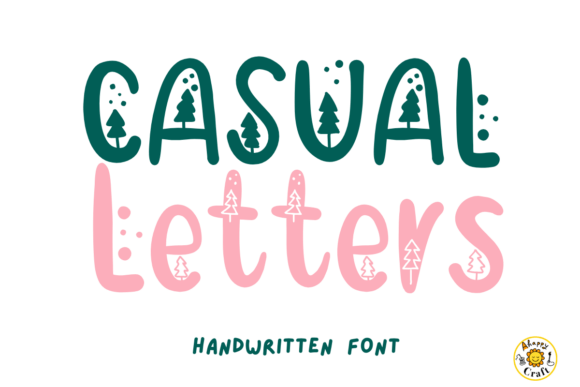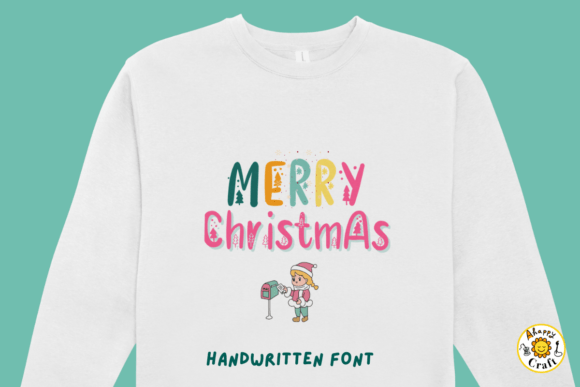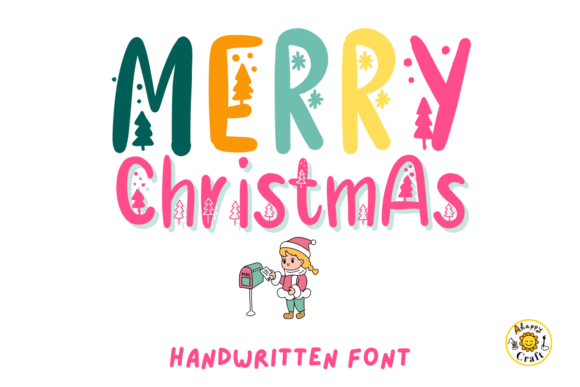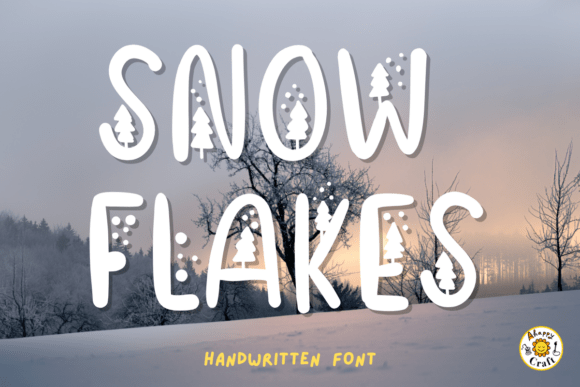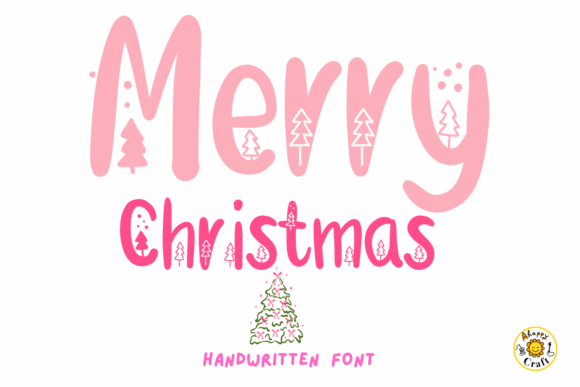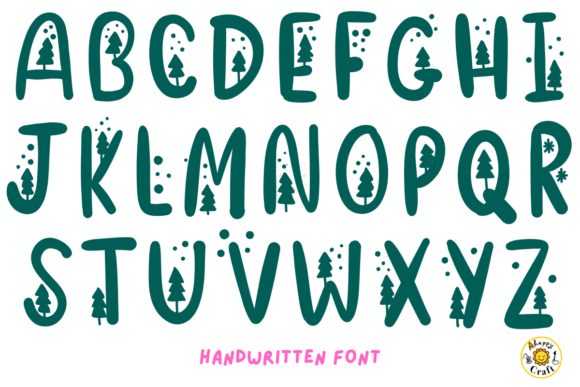
The Magic of Christmas Font: Adding a Touch of Festivity to Your Designs
As the snowflakes start falling and the holiday lights begin to twinkle, many of us find ourselves swept up in a creative flurry of festive projects. Whether you’re making handmade cards, designing decorations, or crafting a family newsletter, there’s something special about bringing the magic of Christmas to life. And for designers, finding the perfect font can make all the difference.
Enter Christmas Font, a charming and festive handwritten decorative font that’s sure to add a touch of whimsy to any winter project. With its playful, handwritten feel, this font is the perfect way to give your designs a personal, handcrafted look that’s sure to delight. And for designers, Christmas Font is a valuable addition to any toolkit, offering a unique way to add a touch of holiday cheer to everything from invitations to gift tags.
Key Features of Christmas Font
- Size: 10,000+ glyphs, including Latin, Cyrillic, and Greek alphabets, as well as various festive symbols and decorations
- Resolution: Supports high-resolution printing and display, making it suitable for various applications, including signage, posters, and digital media
- Unique Characteristics: Features a playful, hand-drawn design with intricate details, ornaments, and flourishes, giving it a festive and whimsical feel
- Script and Style Options: Includes multiple script and style options, such as bold, italic, and outline, to provide versatility and flexibility in design
- Language Support: Supports multiple languages, including English, Spanish, French, German, Italian, and many more, making it suitable for international applications
Designer Review: Christmas Font
Overall, the Christmas Font has a certain je ne sais quoi to it. The designer has put in some effort to create a festive atmosphere, but it’s a mixed bag.
- Unique and playful feel: The font has a quirky charm that could work well for novelty or holiday-themed projects.
- Creative use of ornaments: The inclusion of ornaments and decorations within the font adds a fun and whimsical touch.
- Potential for customisation: The font’s design allows for some creative freedom, making it a good choice for designers who want to experiment with different styles.
- Limited legibility: In certain font sizes or styles, the text can become difficult to read, which may not be ideal for large blocks of text.
- Overly ornate: While the ornaments are a fun touch, they can also make the font feel overly busy or cluttered.
- Not suitable for all projects: The font’s playful nature may not be suitable for more formal or professional projects.
Overall, the Christmas Font is a fun and creative choice for designers who want to add some festive flair to their projects. However, it may not be the best choice for all projects, and designers should be aware of its limitations.